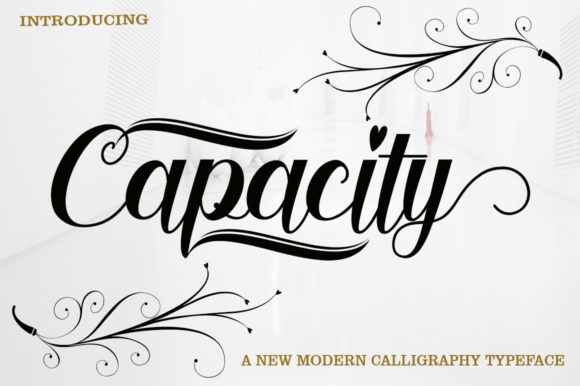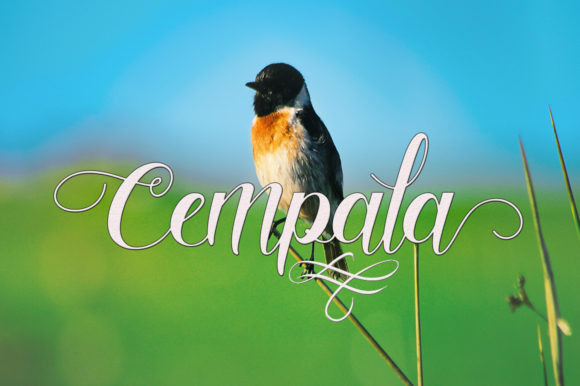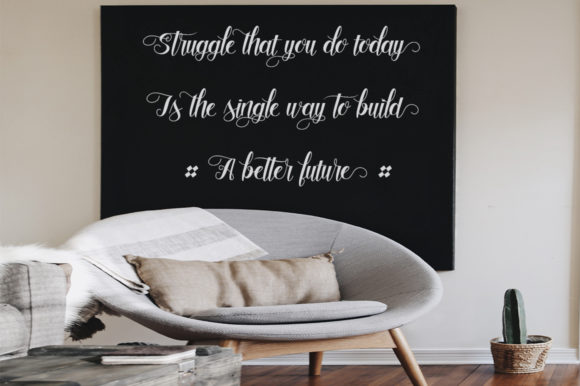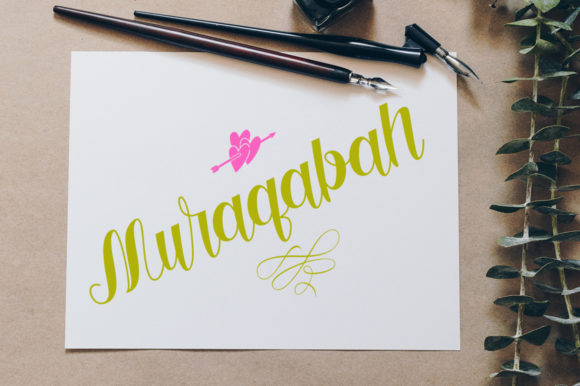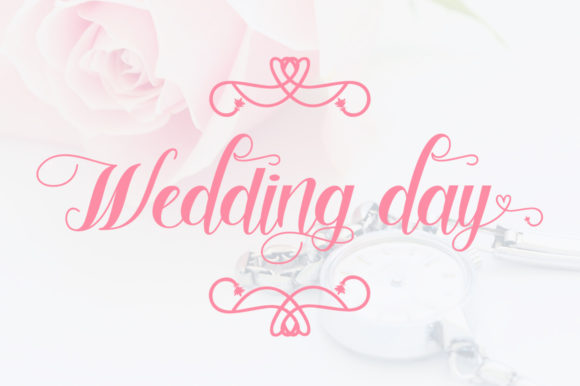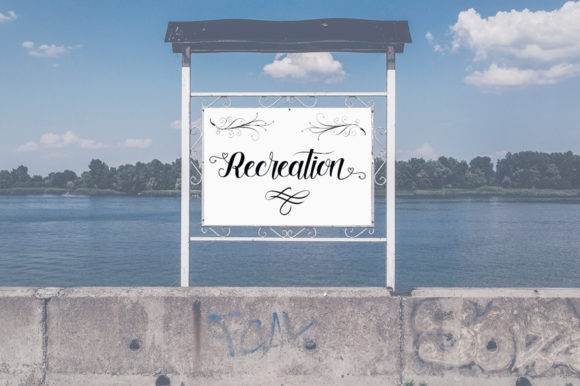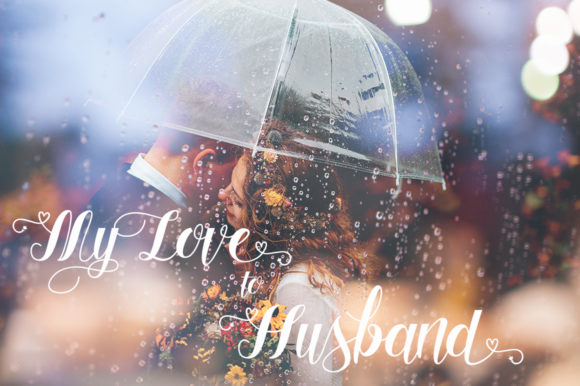
Capacity Font
About Capacity Font
Capacity is a stylish calligraphy font that features a varied baseline, fine lines, and elegant touches. Get inspired by its vintage appeal!